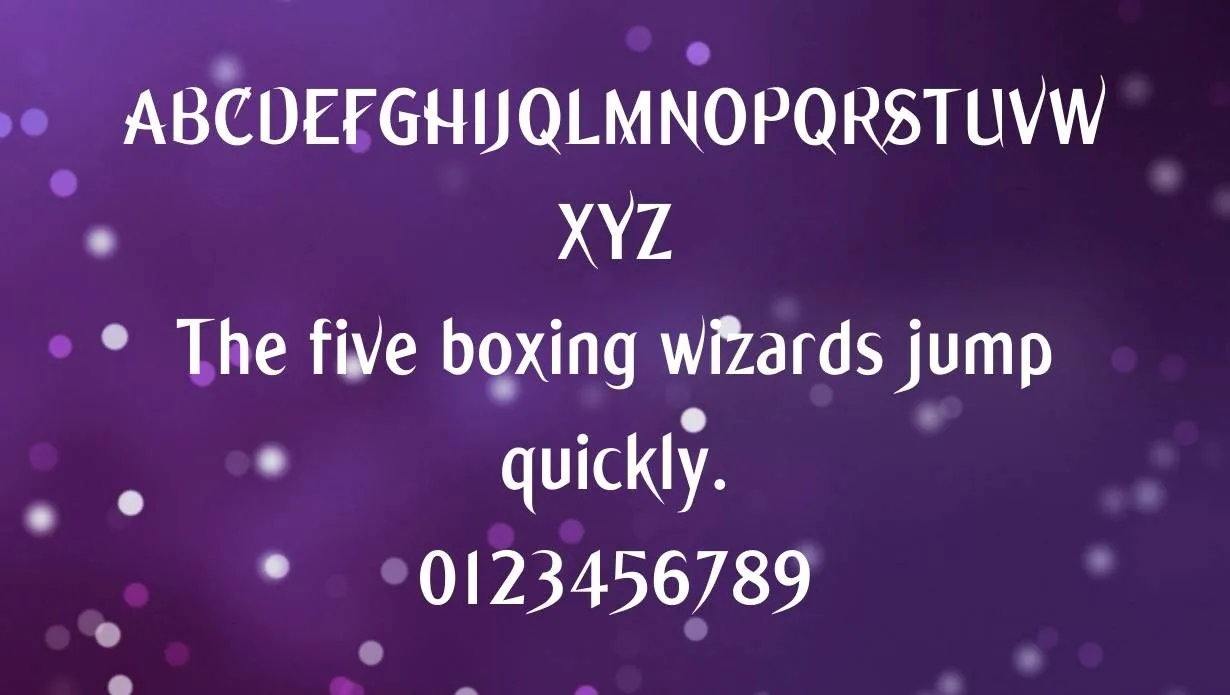
In this post, we are presenting an elegant and eye-catching typeface that is known as Ming Font. This font style design that is been used by various graphic designers for their different types of projects. K-Type is the designer of this beautiful font style design.
Ming Font Family
This font style design falls under the category of Sans-Serif typeface. The font style design looks futuristic art deco. It feels like mid-twentieth-century science fiction.